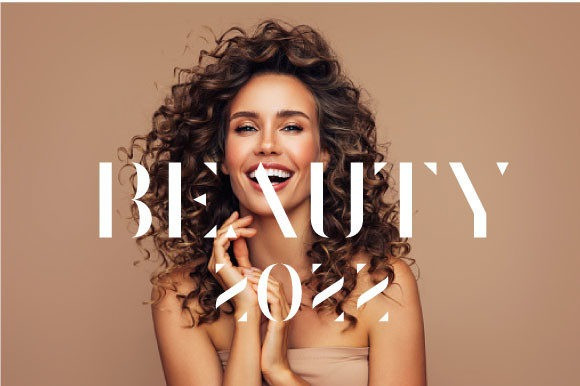
Barbour Sample Font
Fragile Regular, a fashion font inspired by a popular invitation, lettered, mastheads, and magazine logo. it is great for headlines, logos, covers, posters, and other creative designs.